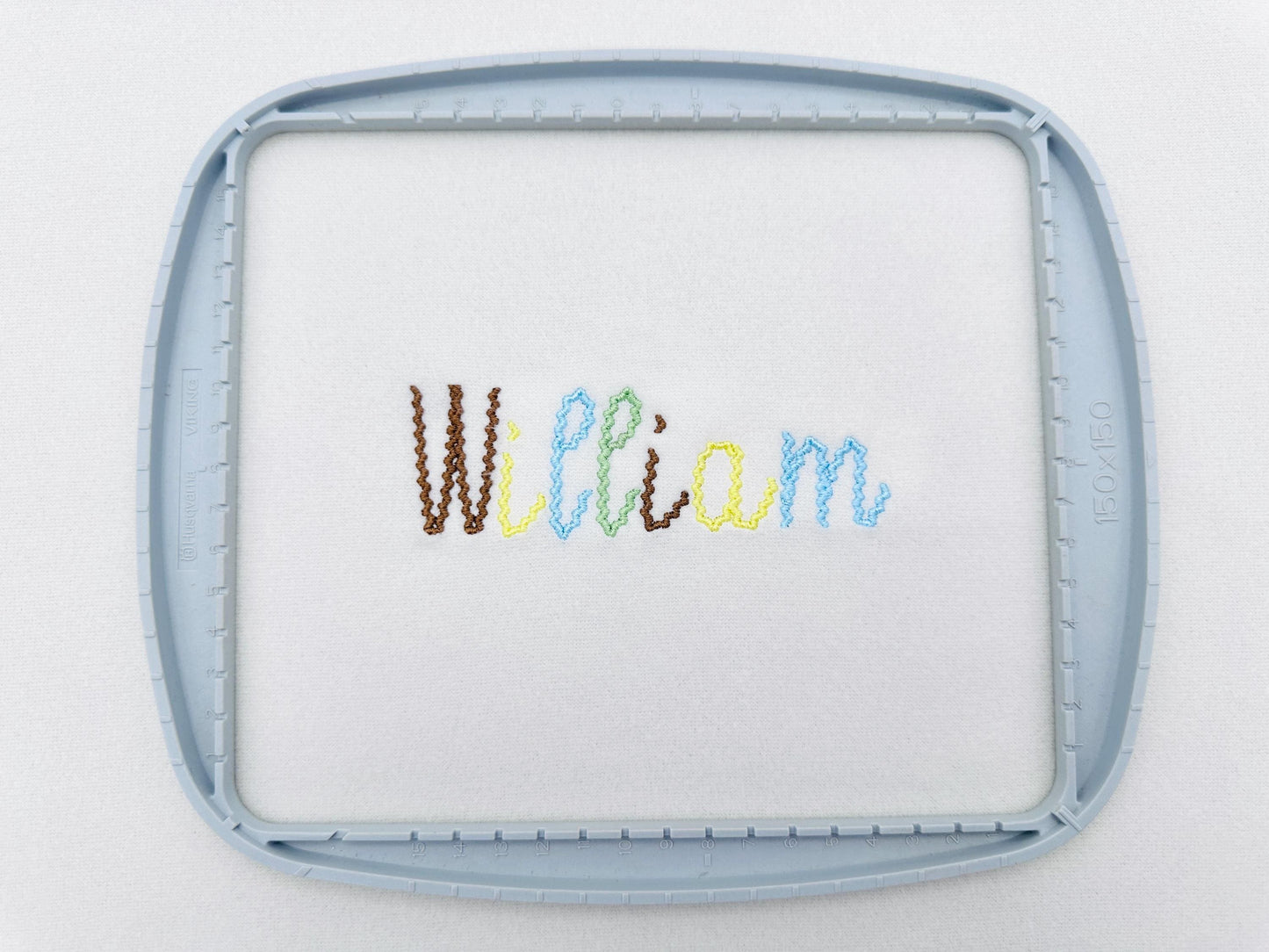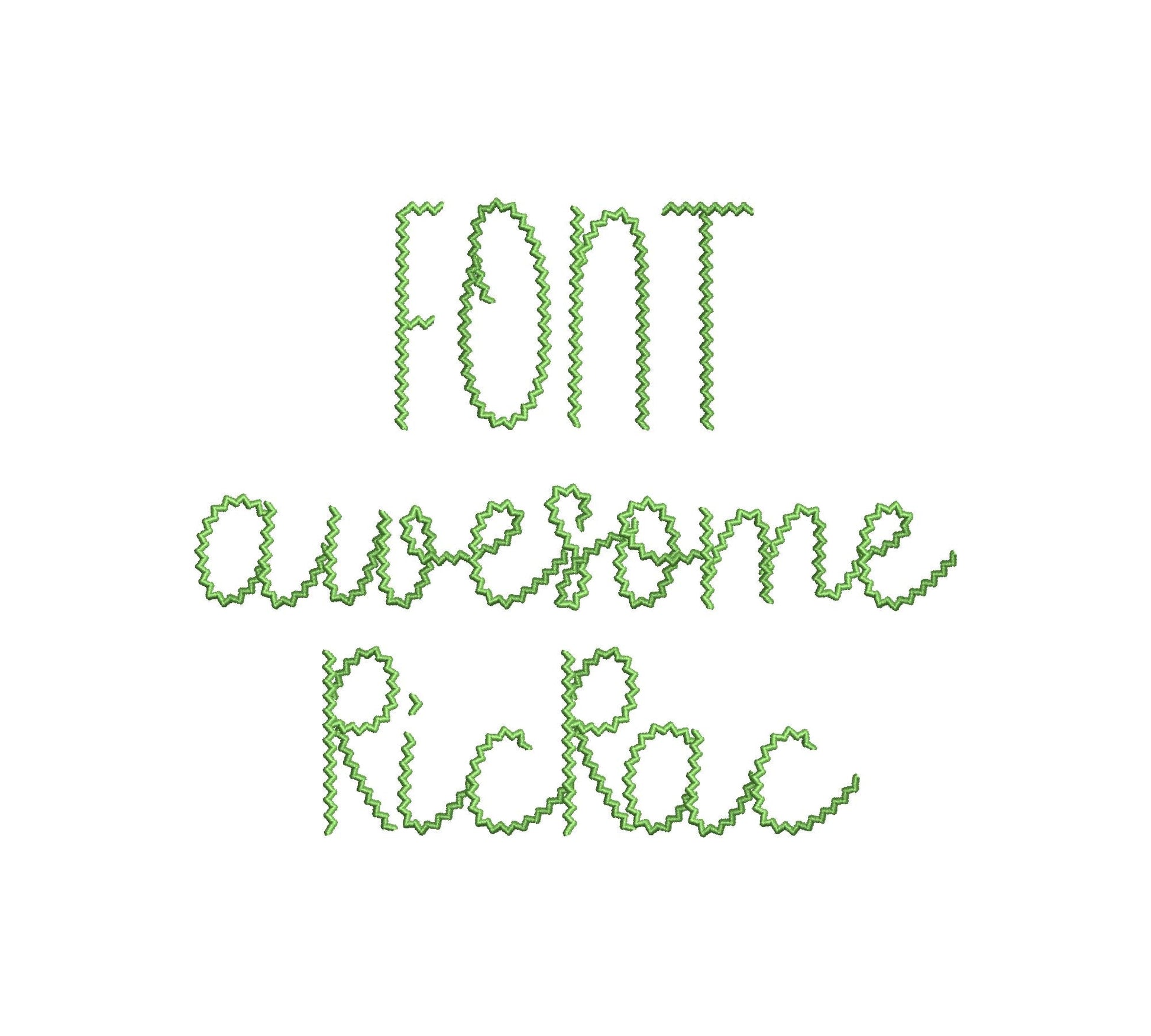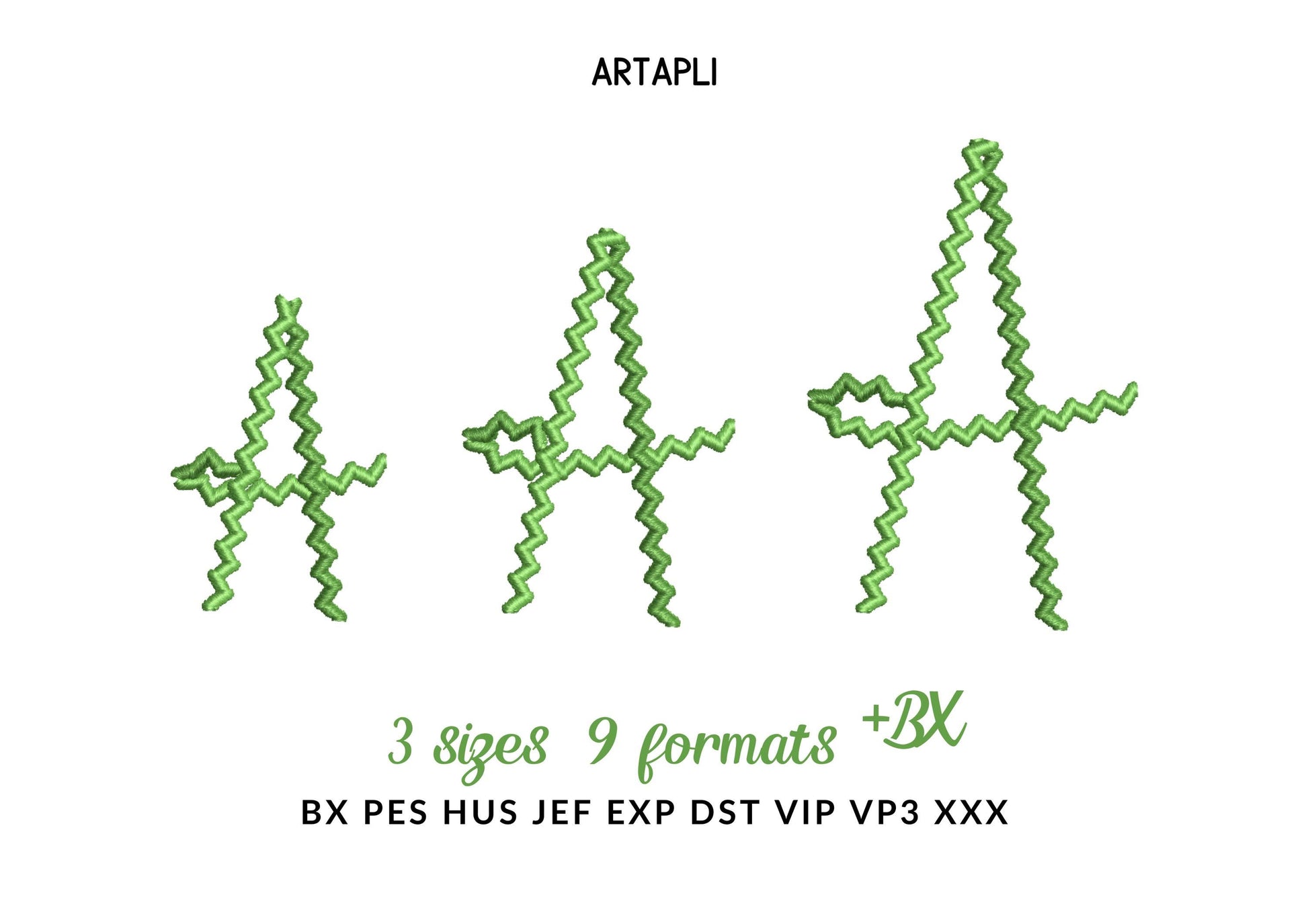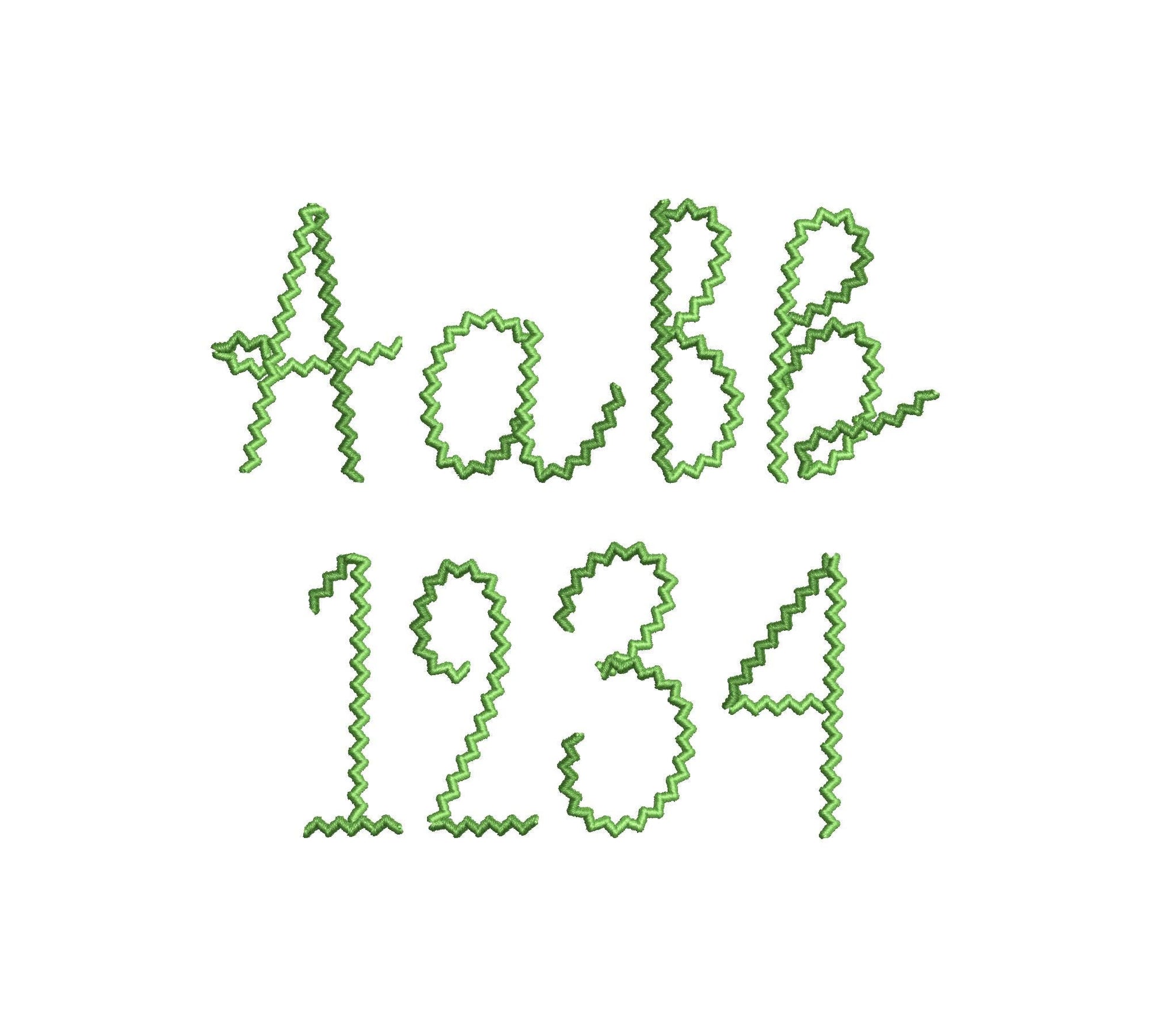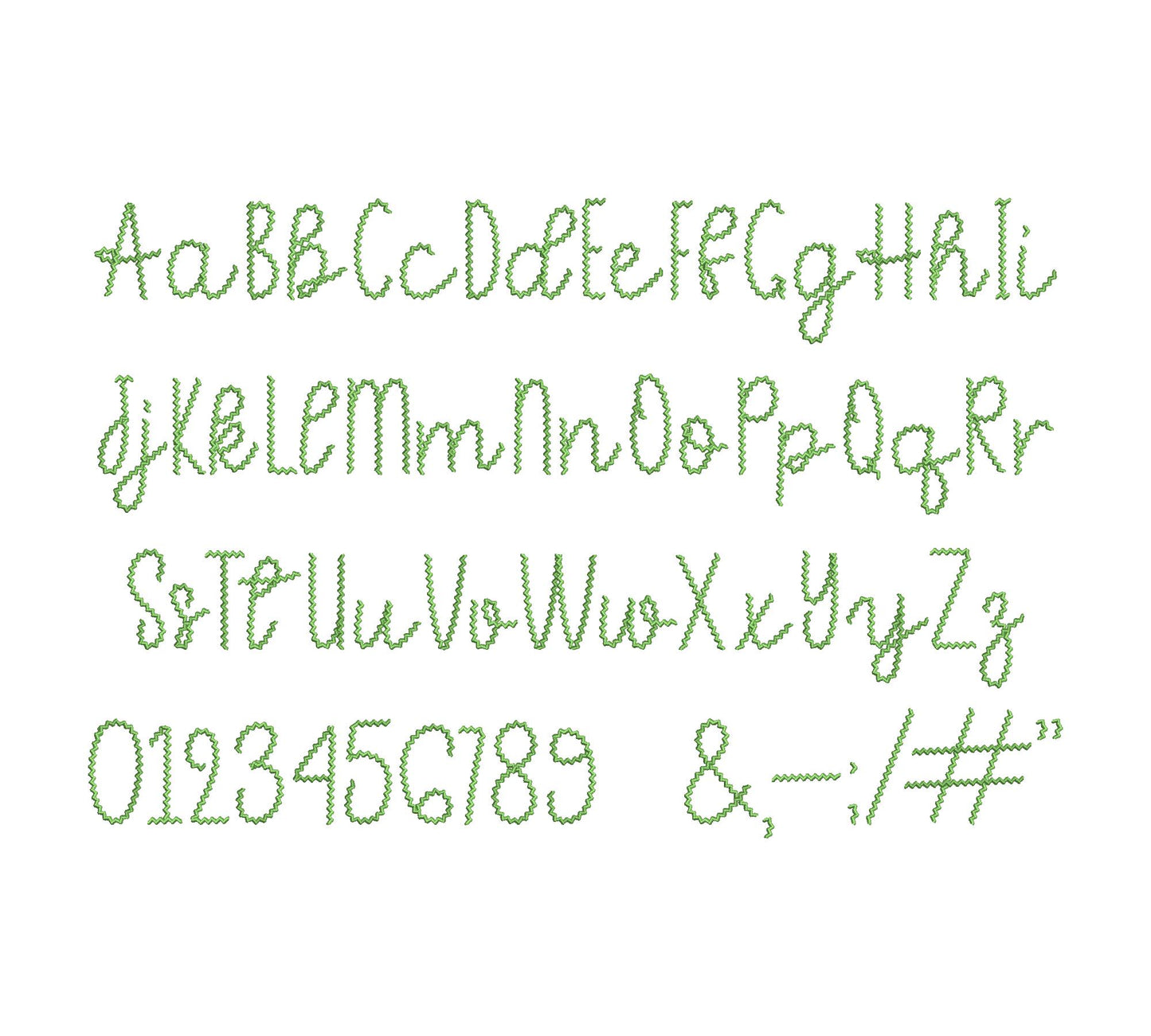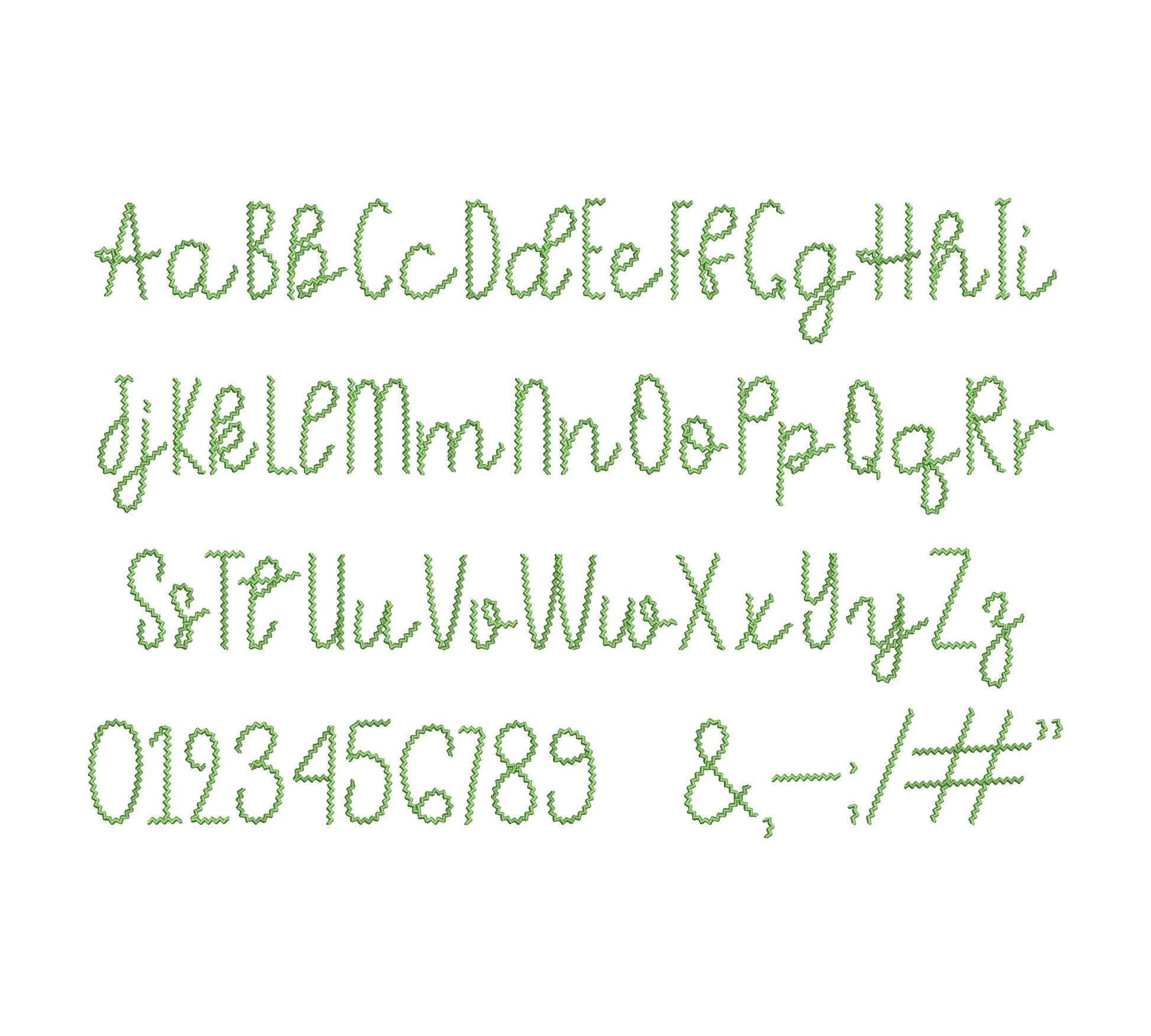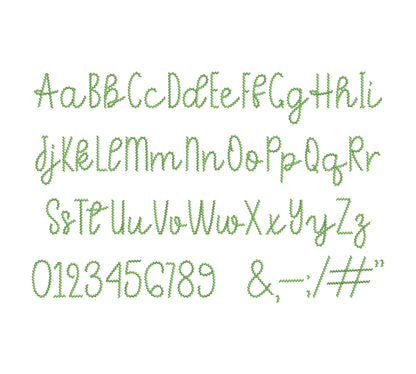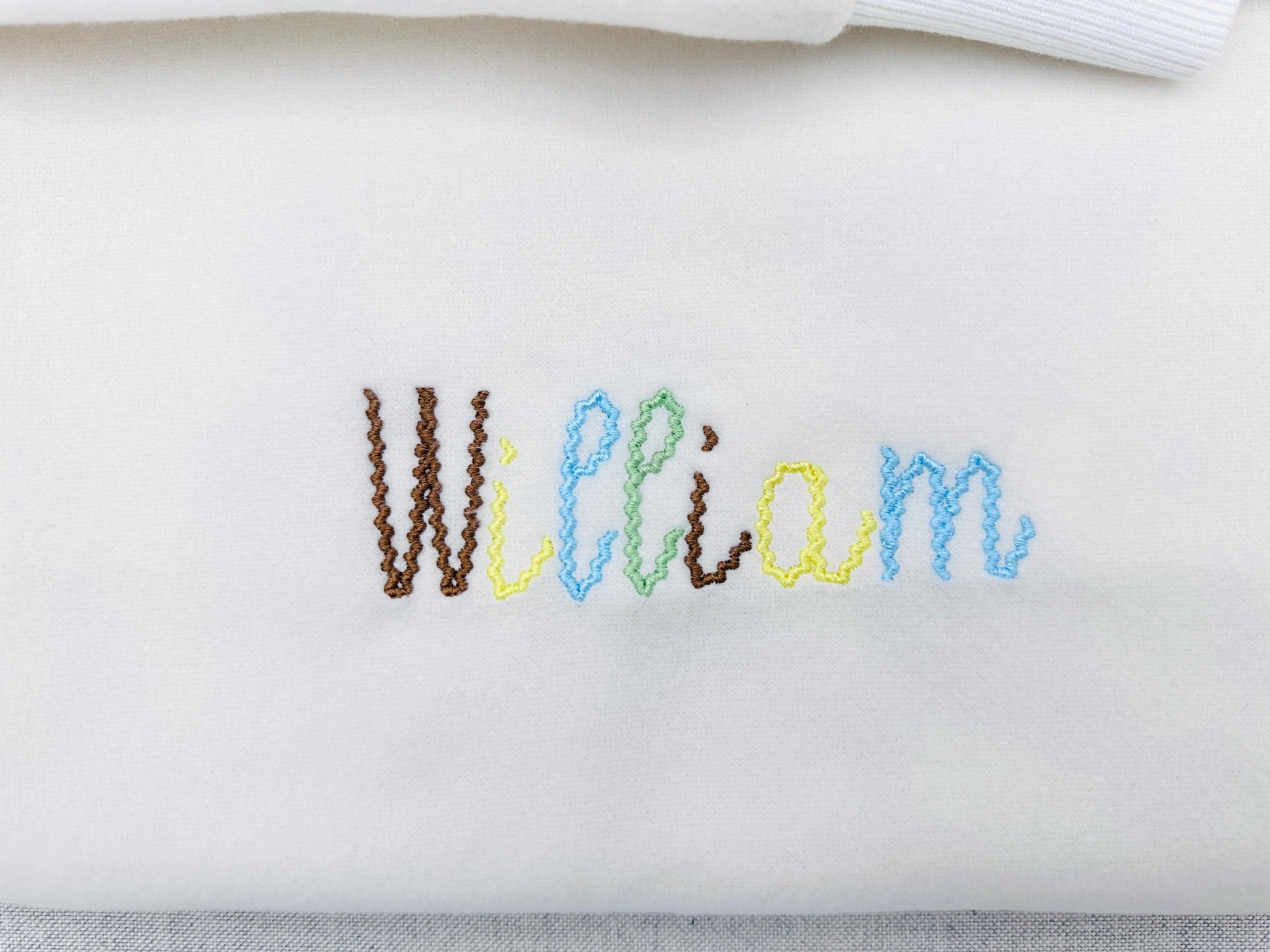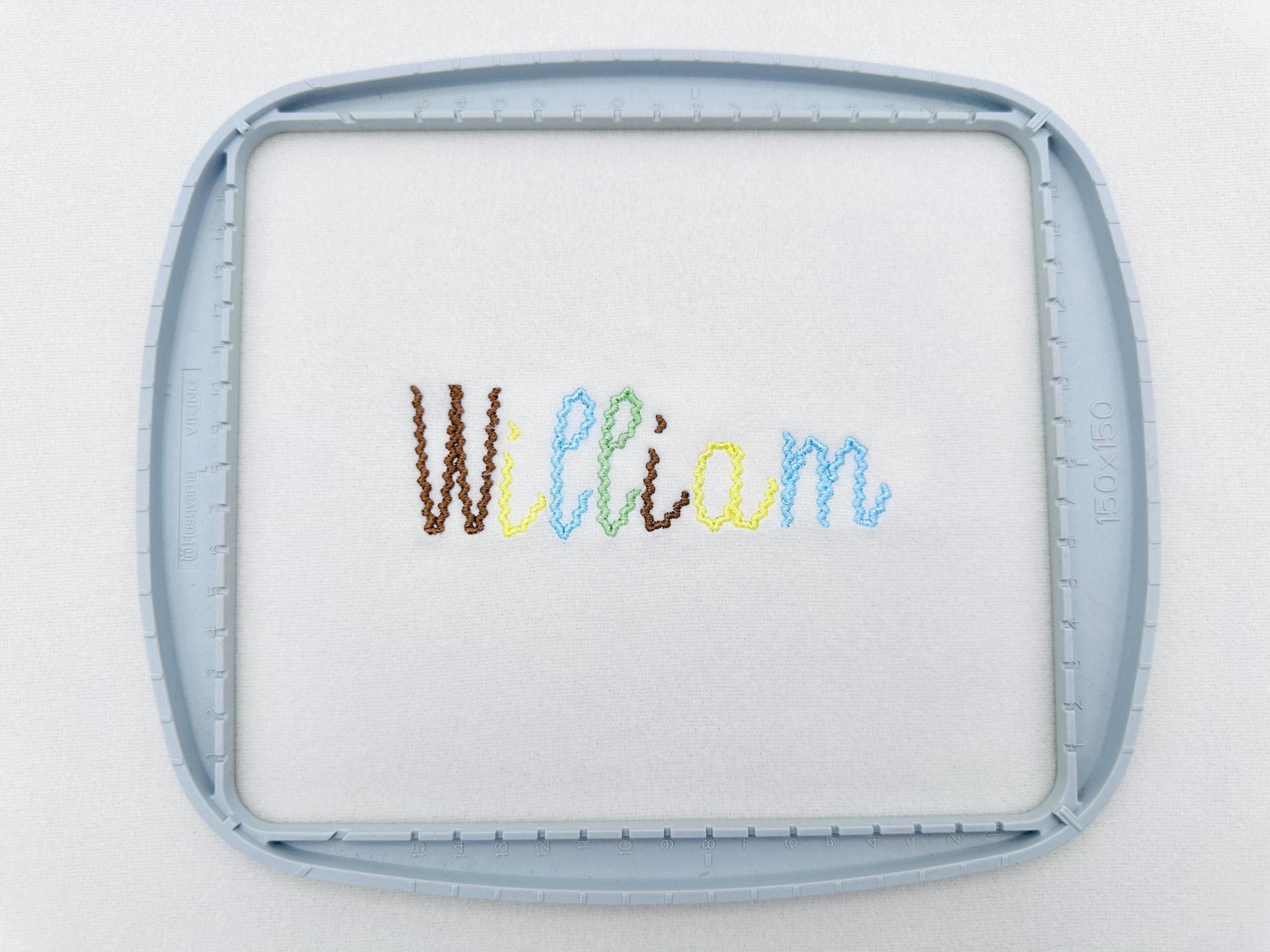
Ricrac Handwritten Font
Or click to open the linkA whimsical handwritten font with a ricrac zigzag look. Fun for kids' names, monograms and playful gifts.
The letters come in three sizes: 1.5, 1.9 and 2.3 inches. The zigzag stitch looks like ricrac trim. Includes uppercase and lowercase letters A to Z, numbers 0 to 9 and punctuation.
- Ricrac handwritten script font